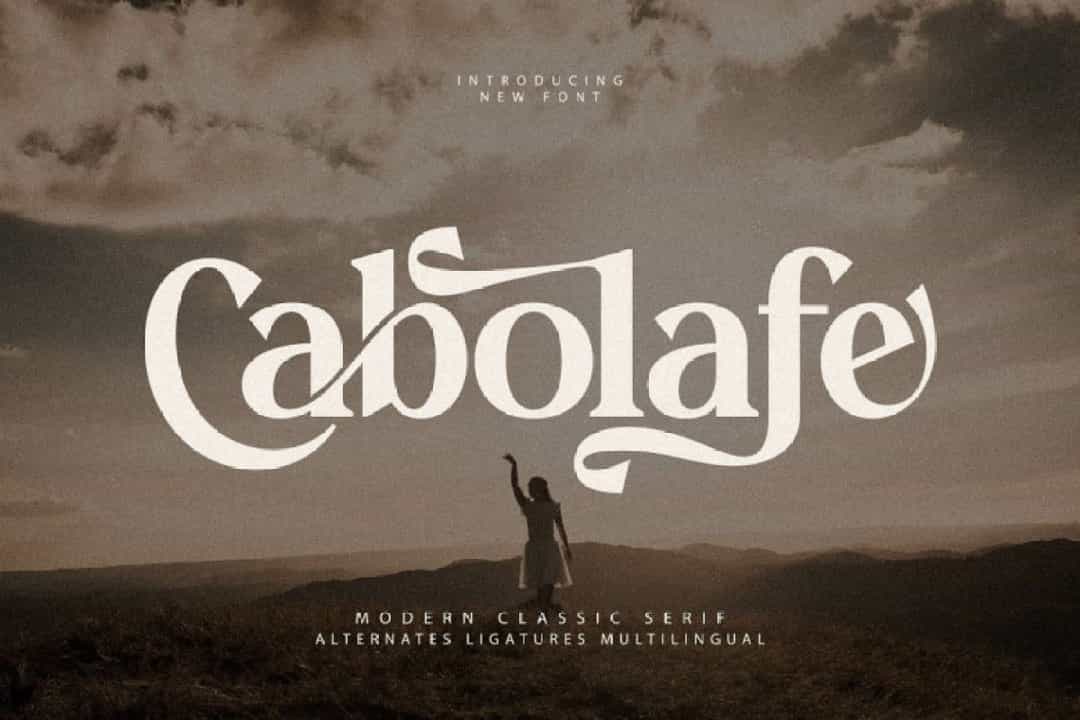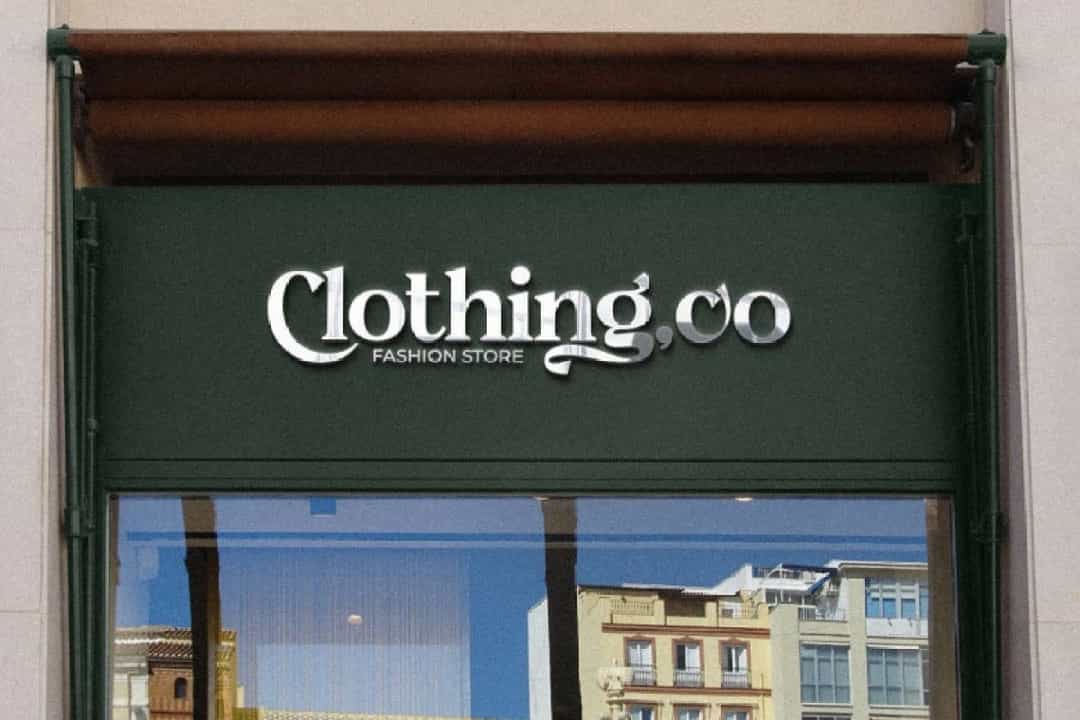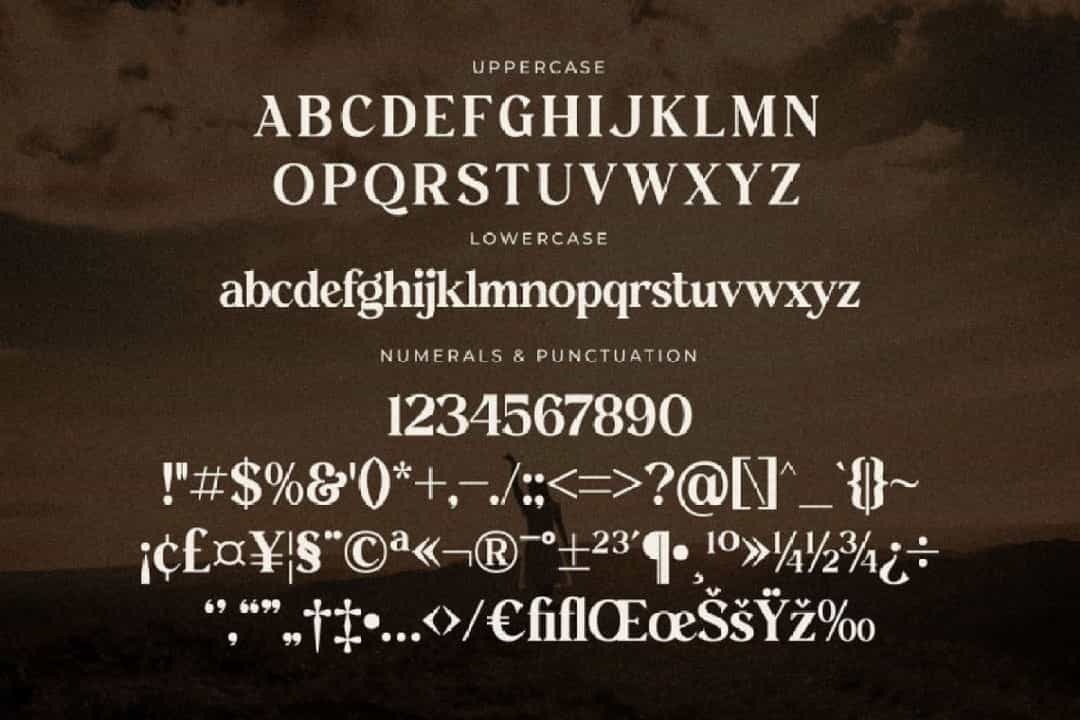
Cabolafe can be described as an elegant and contemporary serif typeface with its distinct style and contemporary appearance. Perfect for creating classy logos, movie or book styles, clothing labels, magazine letters and quotes as well as quotes.